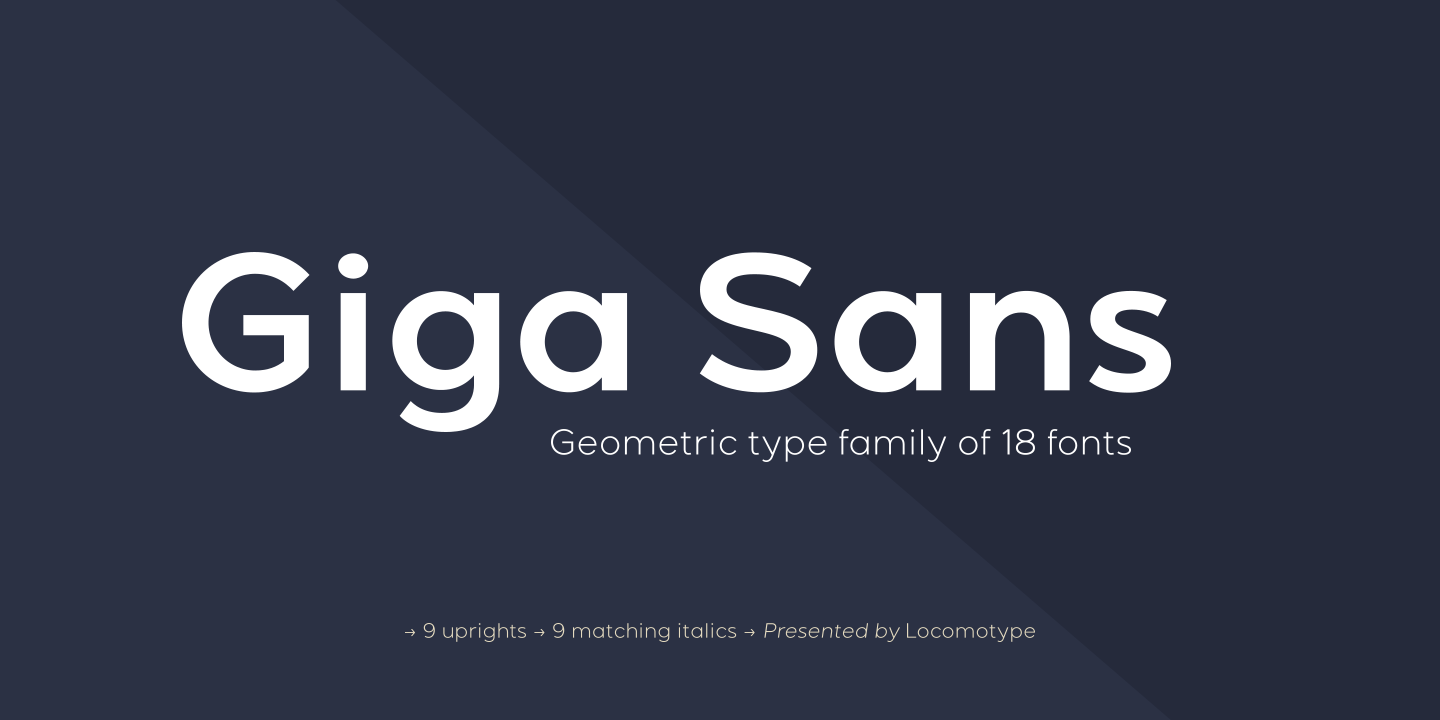
Giga Sans Font is ideal for massive tech companies, large-scale corporate branding, mega event signage, high-impact advertising campaigns, bold digital platforms, expansive retail environments, commanding billboard displays, and powerful brand communications.
What makes Giga Sans Font truly exciting is its extraordinary ability to command maximum attention and create overwhelming visual impact through monumentally bold letterforms that embody scale, power, and unstoppable presence in any competitive environment. This dominant typeface features ultra-robust characteristics with massive visual weight that instantly conveys authority, market leadership, and corporate dominance, making it the perfect choice for organizations that demand immediate recognition, require maximum visual impact, and communicate with audiences who expect nothing less than industry-leading presence and commanding market authority.
The Giga Sans Font family encompasses light, regular, medium, bold, ultra-bold, and mega weights, each designed for maximum scale impact, along with condensed variants optimized for space-efficient applications, providing designers with comprehensive tools for creating massive brand experiences and high-impact communications that dominate competitive visual landscapes.
Fortune 500 companies and market-leading brands will find Giga Sans Font Free Download essential for establishing the commanding presence and market authority needed to maintain leadership positions in competitive industries. This versatile typeface excels in both massive outdoor advertising and detailed corporate communications, maintaining its dominant character while ensuring optimal legibility across all large-scale contexts.
The font's monumentally engineered construction demonstrates exceptional attention to both visual dominance and functional performance, with maximized proportions that ensure overwhelming presence while maintaining superior readability at all scales. From corporate headquarters to mega-event displays, this commanding typeface maintains its market-leading appeal while providing the reliability needed for comprehensive enterprise-level applications. Industry leaders appreciate how this font effortlessly communicates dominance, scale, and distinguished American mega-corporate design excellence through superior monumentally-focused typography.